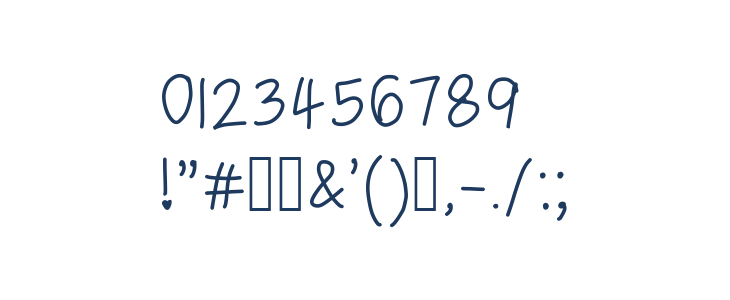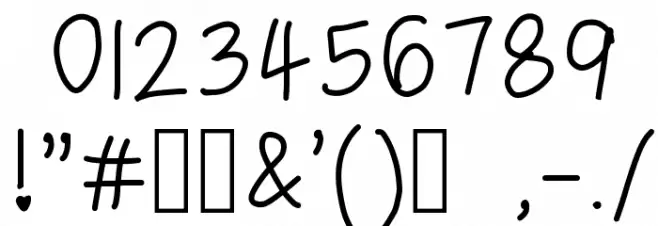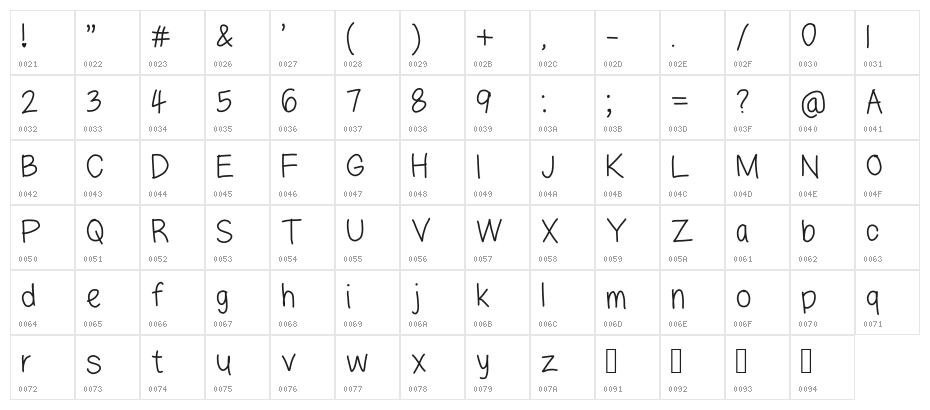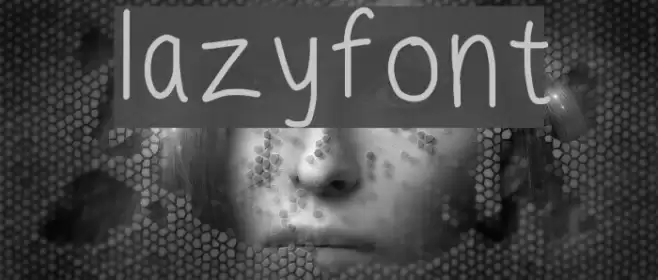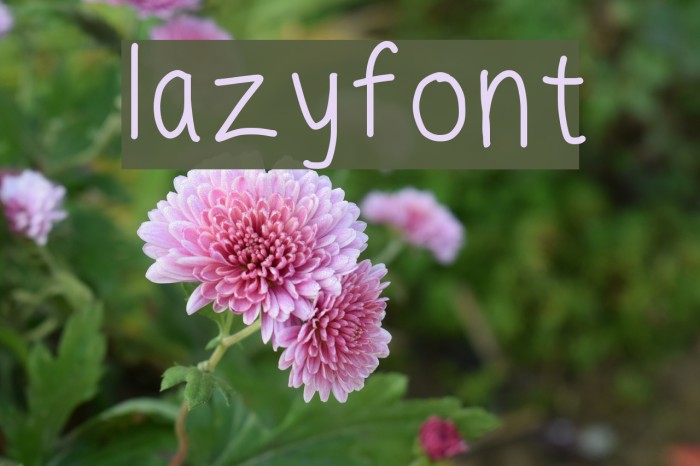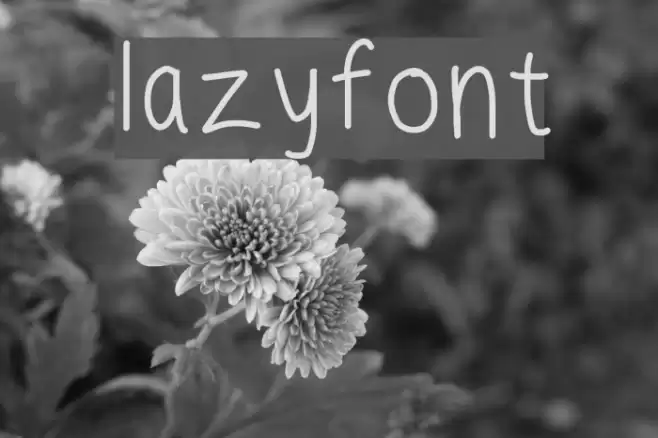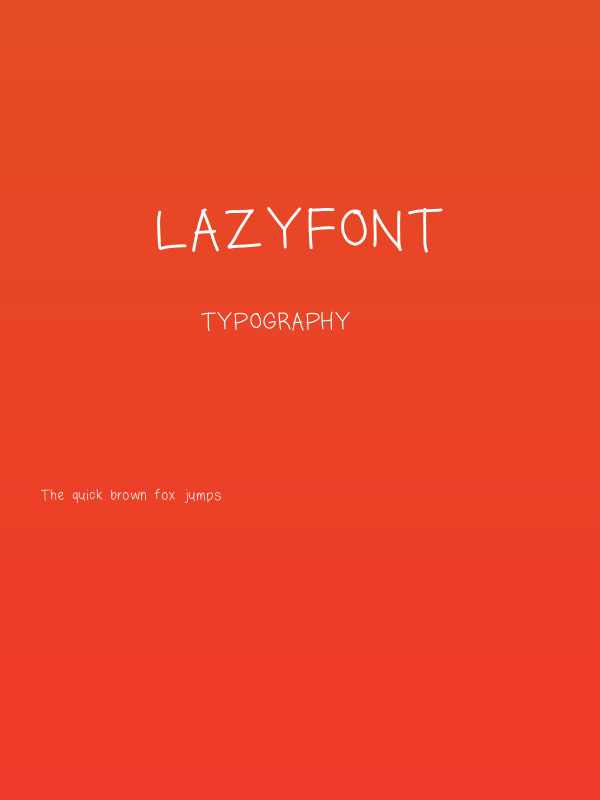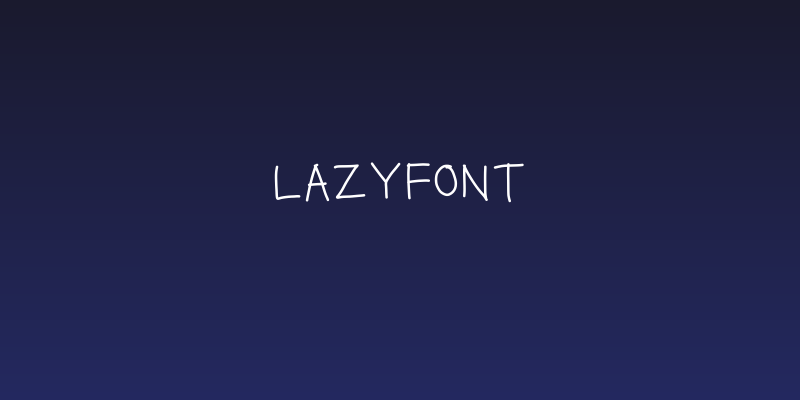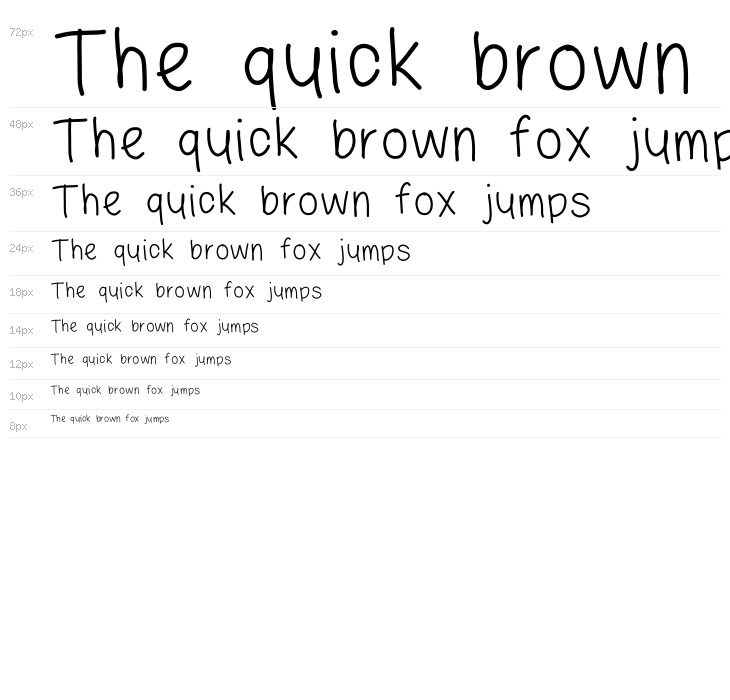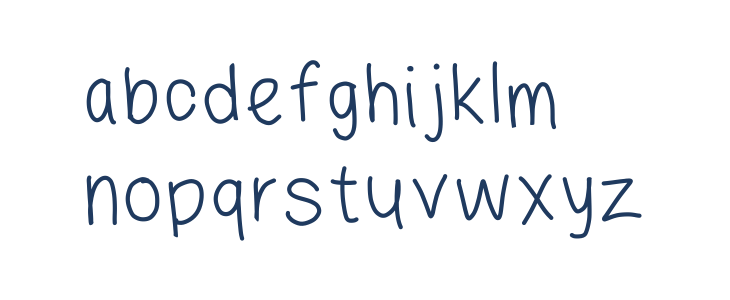
lazyfont Font
lazyfont Description
This font features a playful and casual handwritten style, characterized by its smooth, rounded strokes and slightly irregular letterforms. The uppercase and lowercase letters maintain a consistent flow, giving it a friendly and approachable appearance. The numerals and special characters are crafted with the same informal touch, making them blend seamlessly with the alphabet. Its simplicity and readability make it suitable for a variety of informal applications, while the unique character shapes add a touch of personality to any design.
| Use Case | Headlines, Informal text, Personal projects |
| Proposed Projects | Ideal for children's books, greeting cards, personal blogs, and informal branding projects. |